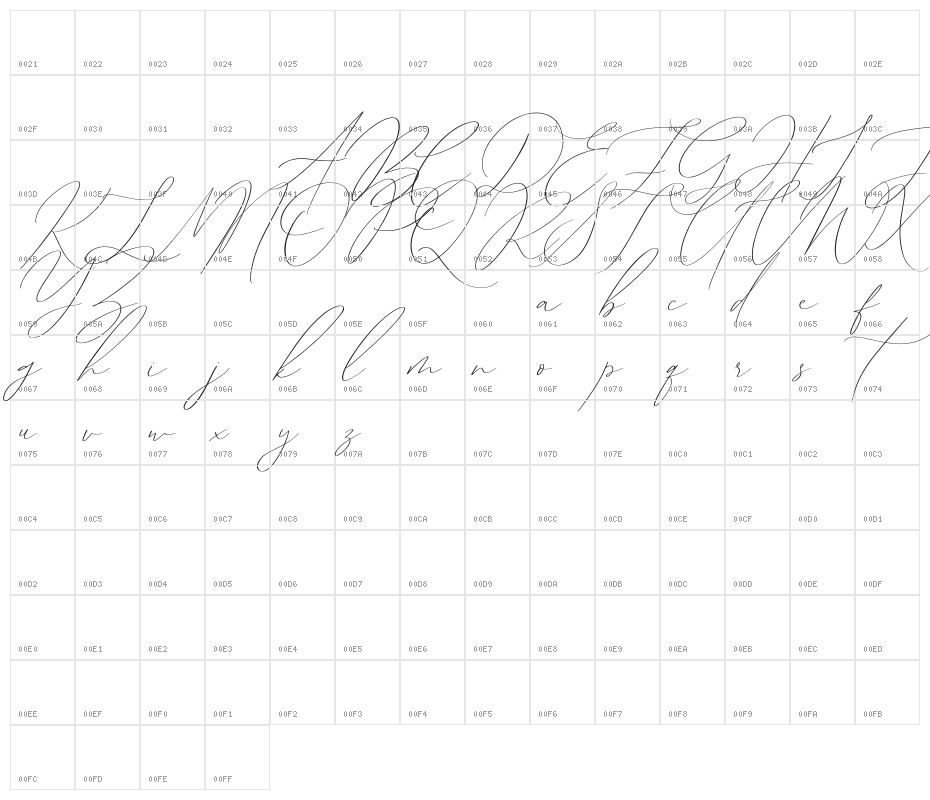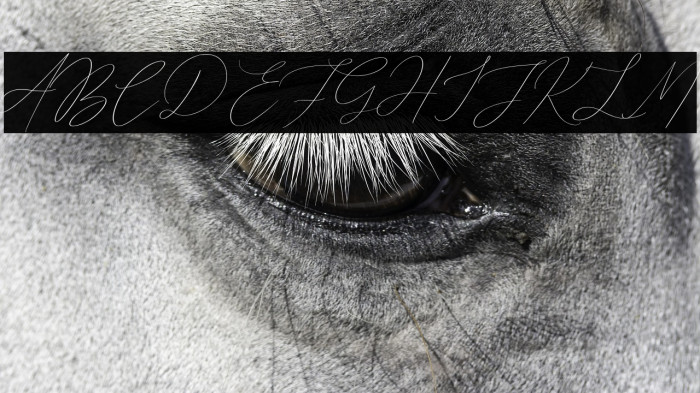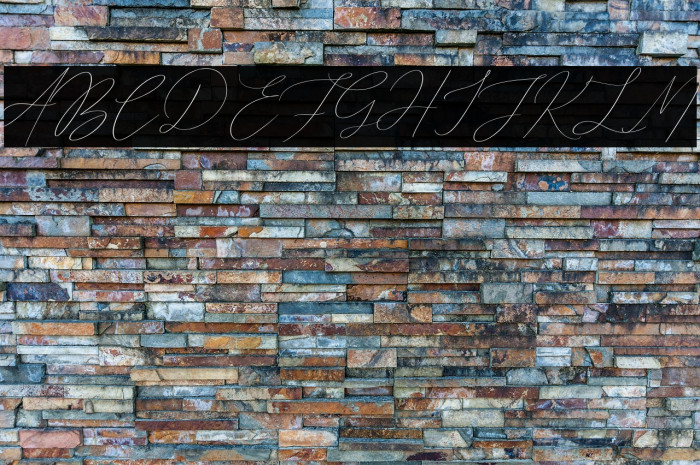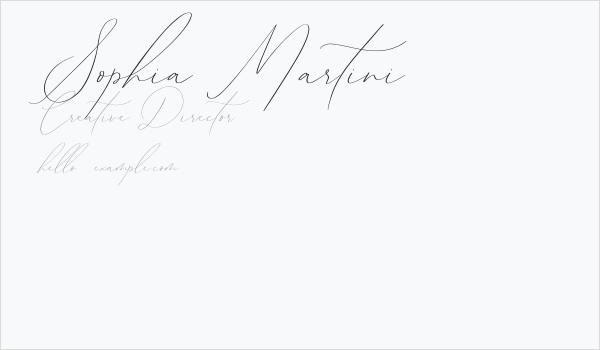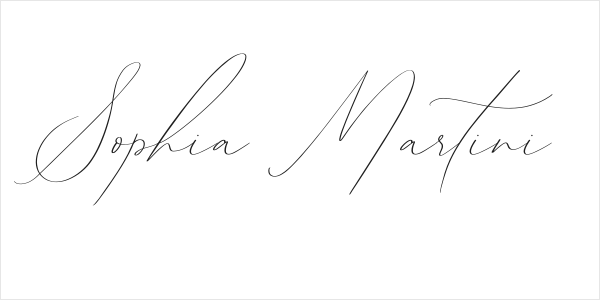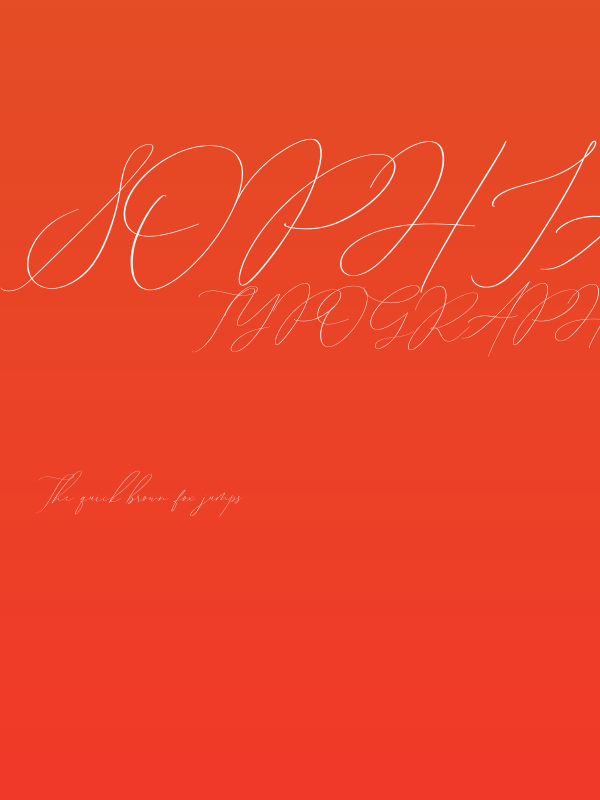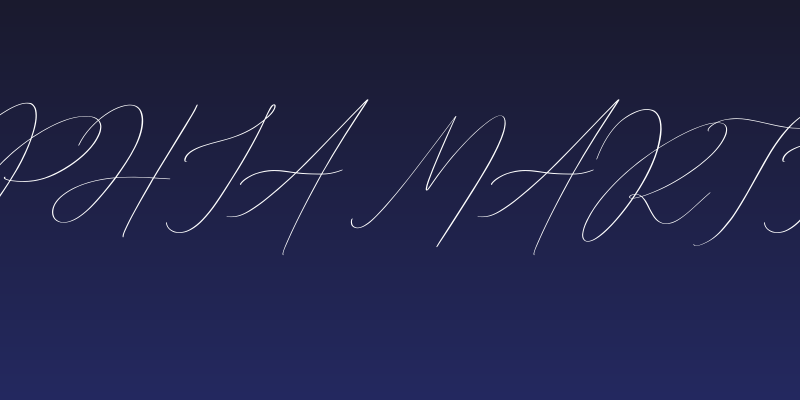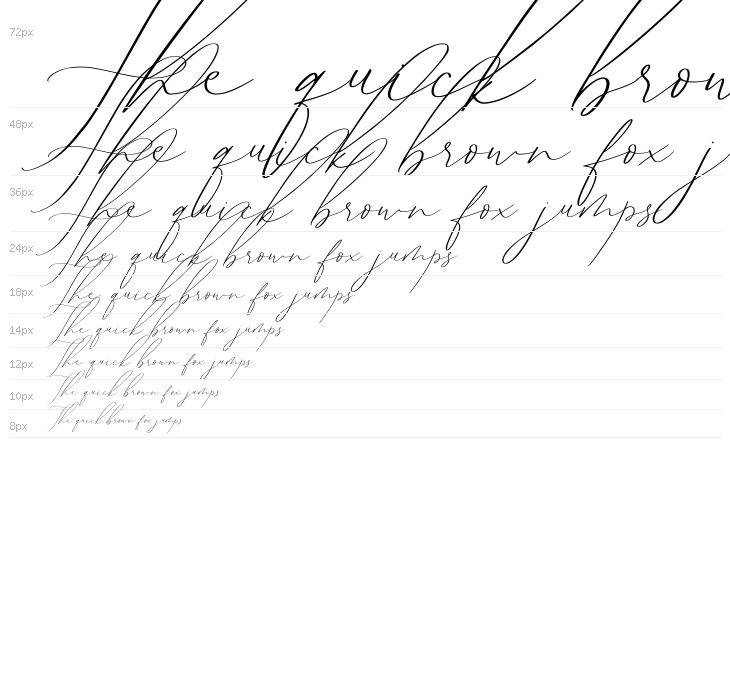
Sophia Martini Font
Sophia Martini Description
This elegant script font features a flowing, cursive style with delicate, thin strokes that create a sense of sophistication and grace. The uppercase letters are slightly larger and more ornate, while the lowercase letters maintain a consistent fluidity, enhancing the overall aesthetic. The font's design is reminiscent of traditional calligraphy, with a modern twist that makes it suitable for various contemporary applications. The characters are well-spaced, allowing for readability while maintaining an artistic flair. This font is perfect for projects that require a touch of elegance and refinement.